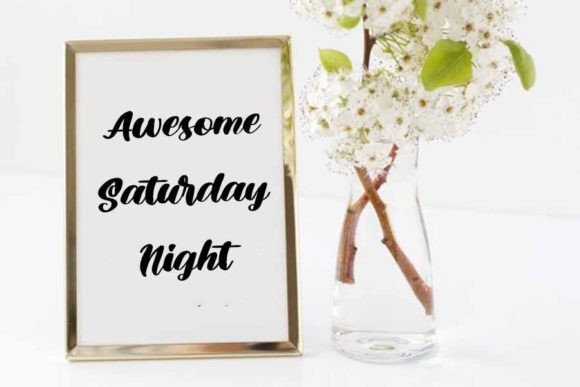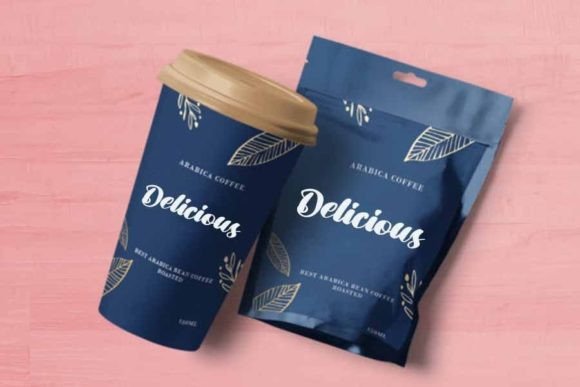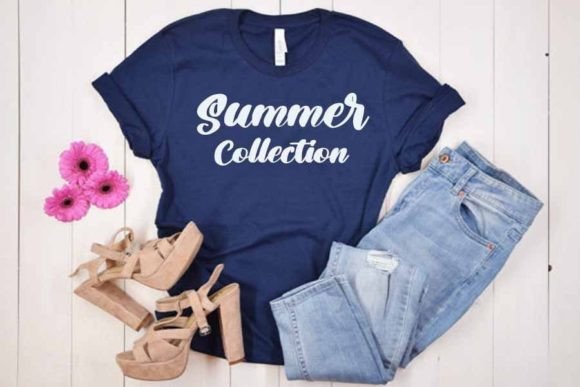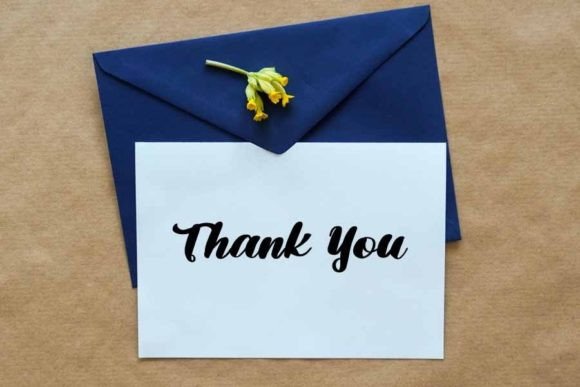
Where Words Become Art: Discovering the Magic of Charming Font
Have you ever found yourself lost in the world of typography, searching for the perfect font to convey the essence of your message? It’s a moment every designer knows well – that spark of inspiration when you stumble upon a typeface that speaks directly to your heart. For me, it was a chance encounter with the Charming Font, a calligraphy-inspired masterpiece that has since become my go-to companion for all things creative.
The Charming Font is more than just a pretty face; it’s a versatile tool that can elevate any project from casual to elegant. Whether you’re designing a logo, wedding invitation, or signage, this font’s romantic and sweet charm is sure to captivate your audience. As a designer, having the Charming Font in your arsenal can be a game-changer, allowing you to infuse your work with a touch of whimsy and personality.
Charming Font Key Features
- Unique Characteristics: The font’s elegant and refined design features a unique blend of traditional and modern elements, making it perfect for high-end branding, luxury packaging, and sophisticated publishing projects.
- Scalability: The font is designed to be highly scalable, ensuring that it remains legible and visually appealing at various font sizes, from small captions to large headlines.
Designer Review: Charming Font
Overall, I think Charming Font is a great addition to any design project. It’s perfect for creating a whimsical and romantic feel, and it works particularly well for
- Food and beverage branding (especially for bakeries and cafes)
- Children’s products and packaging
One of the things I love about Charming Font is its playful, handwritten feel. It’s easy to read, even in smaller font sizes, and it adds a touch of personality to any design. The font also comes in a range of weights and styles, which makes it super versatile.
- The font may not be suitable for formal or corporate designs, as it’s a bit too whimsical for those types of projects.
- It can be a bit tricky to pair with other fonts, as it has a strong personality and may overpower other typefaces.
Overall, I think Charming Font is a great choice for designers who want to add a touch of whimsy to their projects. With its playful feel and range of weights and styles, it’s a versatile and effective font that’s sure to delight.
Tips: Use Charming Font for titles, headings, and quotes to add a touch of elegance to your designs.
Tips: Use Charming Font for typography-heavy designs, such as posters, invitations, and book covers.
Tips: Use Charming Font for presentations, reports, and documents that require a touch of sophistication.
Charming Font is ideal for:
- Formal event invitations.
- Book covers and author branding.
- High-end business materials.
What is the recommended font size for optimal readability with the Charming Font?
The recommended font size for optimal readability with the Charming Font is between 12 and 14 points, depending on the specific use case and desired level of legibility. However, feel free to experiment with different font sizes to find the perfect balance for your design.